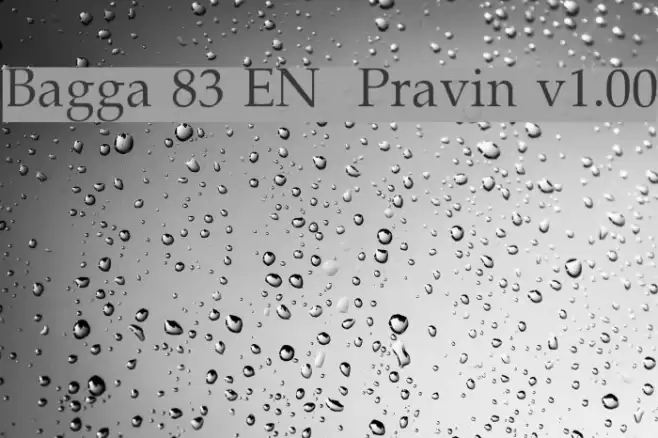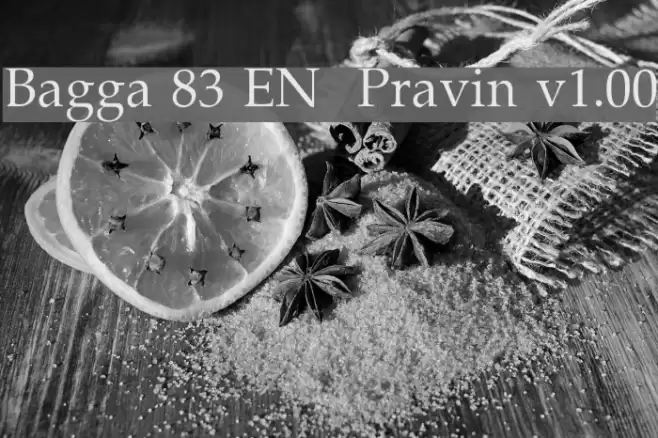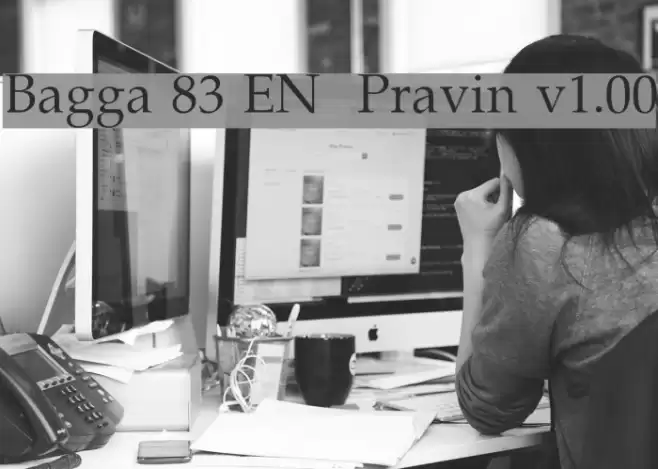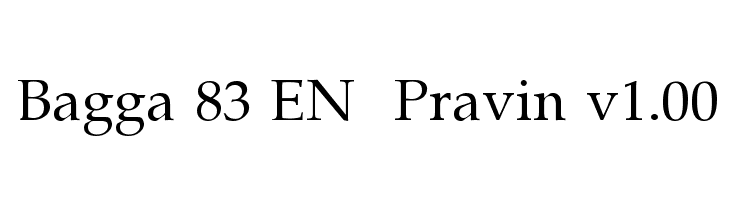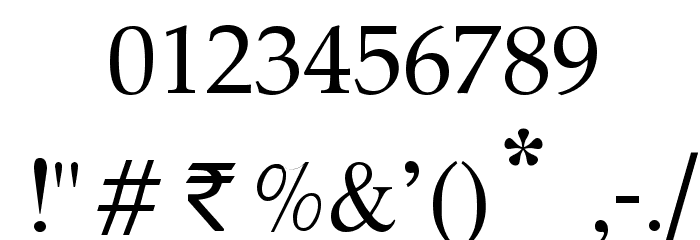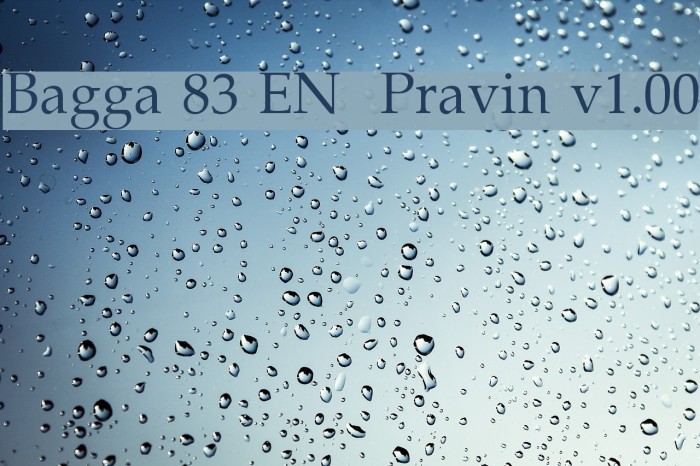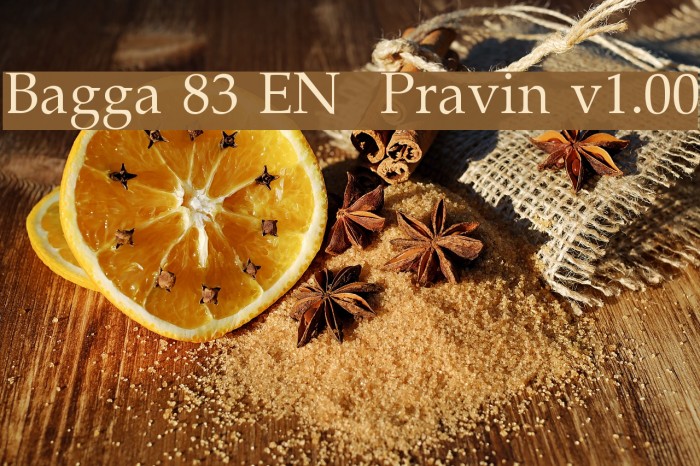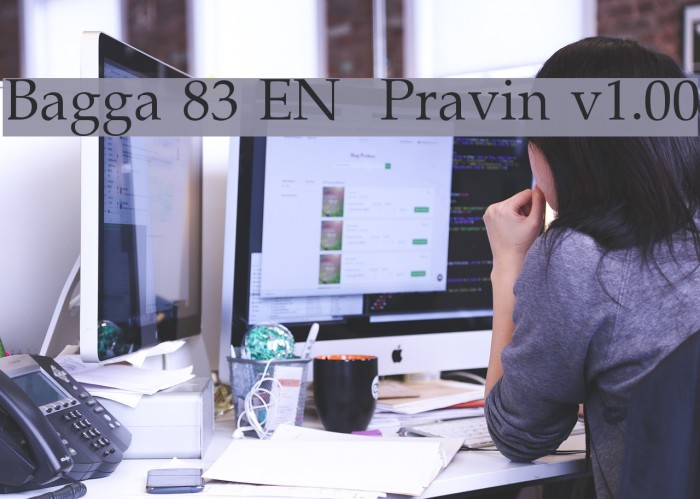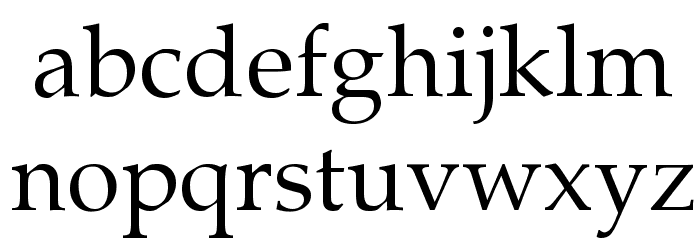
Bagga 83 EN Pravin v1.00
This font features a classic serif design with elegant and refined strokes. The uppercase letters are bold and authoritative, while the lowercase letters maintain a graceful and readable form. The numerals are clear and distinct, making them suitable for both formal and casual contexts. Special characters are well-integrated, maintaining the overall aesthetic of the typeface. The font's balanced proportions and moderate contrast in stroke thickness contribute to its timeless appeal, making it versatile for various design applications.
A classic serif font with elegant strokes and balanced proportions.
- Proposed Projects: Ideal for editorial design, book covers, formal invitations, and branding projects that require a touch of sophistication.
- Category: Serif
- Overall Style: Classic